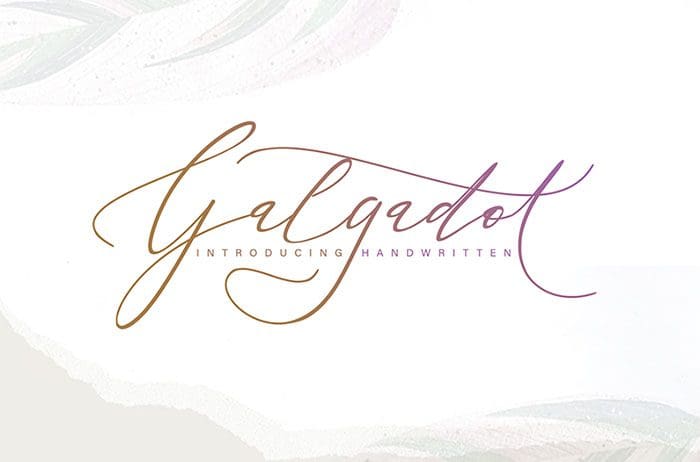
Free Galgadot Handwritten Font
Galgadot Handwritten Font
Free Galgadot handwritten font is a stunning and unique font, full of elegance. It will add an authentic spark to any design project. The Galgadot Stylish Font a classy, fun and fabulous dreamy font inspired by luxury fashion. Created this font by Thomas Aradea. You can also search more free Handwritten Fonts.